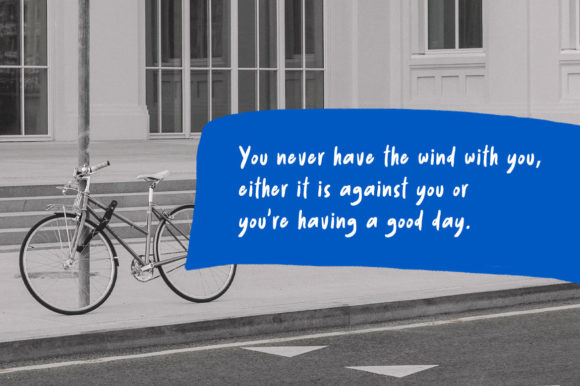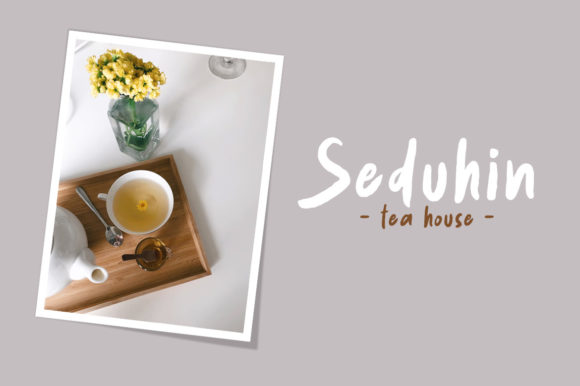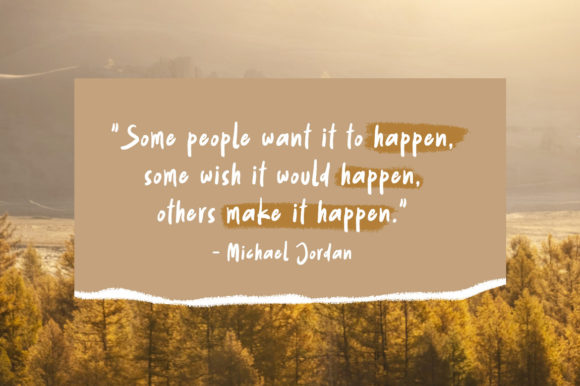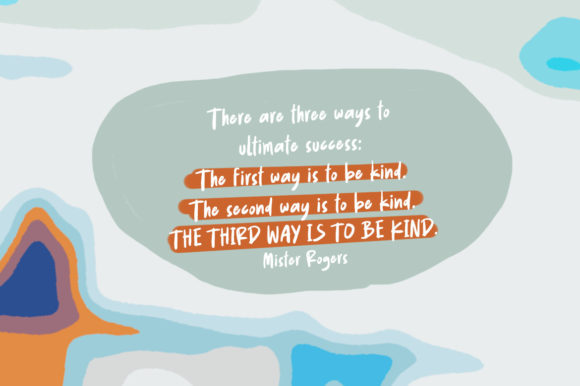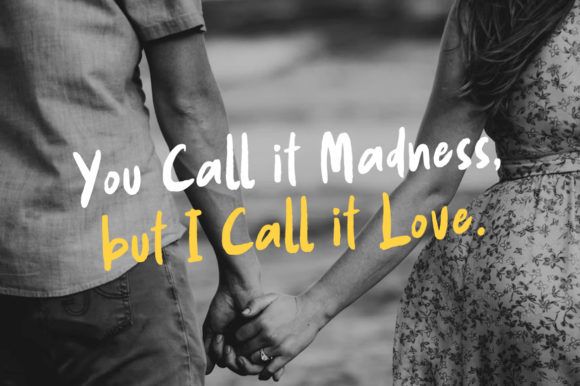
Introduction to Kapuas Font
As designers, we’ve all been there – staring at a blank page, trying to come up with the perfect idea for a project. And then, it hits us – a spark of creativity that sets our imagination ablaze. But what if you had the perfect tool to bring that idea to life? Enter the Kapuas Font, a natural and fun handwritten font that’s sure to capture everyone’s attention.
Whether you’re working on a logo design, creating birthday cards, or crafting the perfect cover book, the Kapuas Font is an invaluable resource for any designer. Its high-quality design and transparent background make it the perfect addition to any creative project. And the best part? It’s available for free download, making it an essential design resource for designers of all levels.
Key Features of Kapuas Font
- Unique and elegant design suitable for creative projects and modern designs
- High-quality font with a transparent background, ideal for overlaying on images or videos
- Perfect for use in logos, headings, and titles, adding a touch of sophistication to any design
- Includes a range of weights and styles, providing versatility for different creative projects
Honest Review: Kapuas Font
I recently came across the Kapuas Font, and I must say it’s a great addition to any designer’s toolkit. The font offers a unique blend of modern and traditional elements, making it perfect for creative projects that require a touch of elegance.
- High-quality design: The Kapuas Font is beautifully crafted, with clean lines and a clear, legible font face.
- Transparent background: The font’s transparent background allows for seamless integration with any background design.
- Wide language support: The font supports multiple languages, making it a great option for global design projects.
- Limited styles: The font only comes in a few styles, which may limit its versatility for certain design projects.
- Not ideal for bold text: The font may not be the best choice for projects that require bold, eye-catching text.
Overall, I’m impressed with the Kapuas Font’s quality and versatility. While it may have some limitations, it’s a great resource for designers working on creative projects. I’d definitely recommend it as a design resource to add to your toolkit.
Kapuas Font
Tips for Getting the Most Out of Kapuas Font
Experiment with different font sizes, colors, and combinations to create a unique design. Use the font in conjunction with other design elements, such as images and shapes, to add depth and interest to your project. The transparent background of the font makes it easy to layer and composite with other design elements.
The Kapuas Font is suitable for a wide range of creative projects, including social media graphics, flyers, presentations, and documents. Its high quality and transparent background make it a great design resource for any project that requires a unique and eye-catching font.
Alternatives to Kapuas Font
Ostrich Sans is a high-quality sans-serif font ideal for creative projects requiring a clean and modern design. It features a transparent background, making it perfect for overlaying on images. For designers seeking a more elegant and sophisticated look, Ostrich Sans is a great alternative to Kapuas Font.
Montserrat is a popular sans-serif font that offers a sleek and modern design, making it suitable for a wide range of creative projects. Its high quality and versatility make it an excellent choice for designers looking for a design resource that can be used in various contexts. While Montserrat has a more geometric feel, it shares a similar aesthetic with Kapuas Font.
Q: Does the Kapuas Font have a transparent background?
No, the Kapuas Font is a solid font and does not have a transparent background. However, you can use it with a transparent background image or design element to create a unique visual effect.